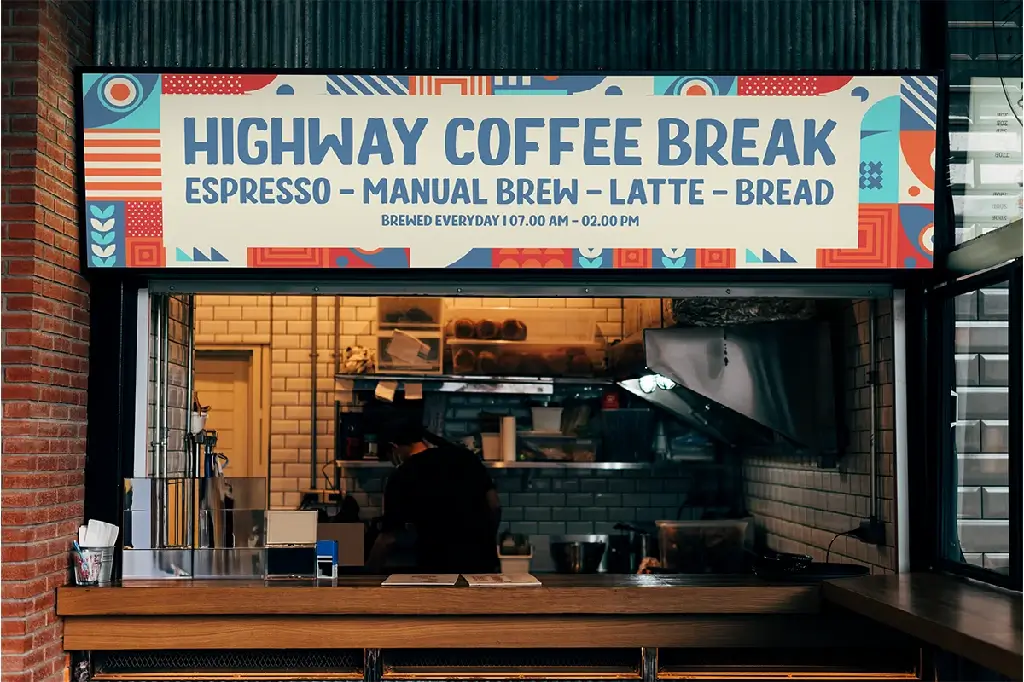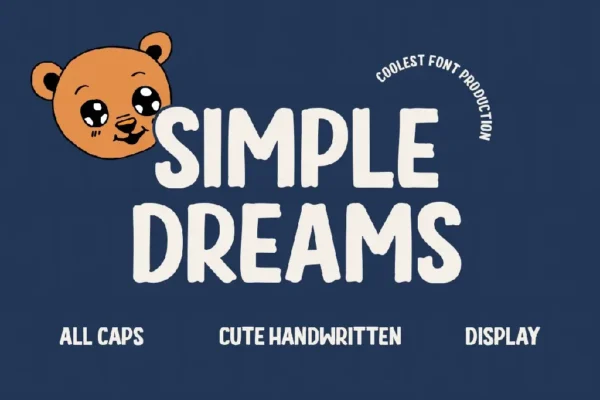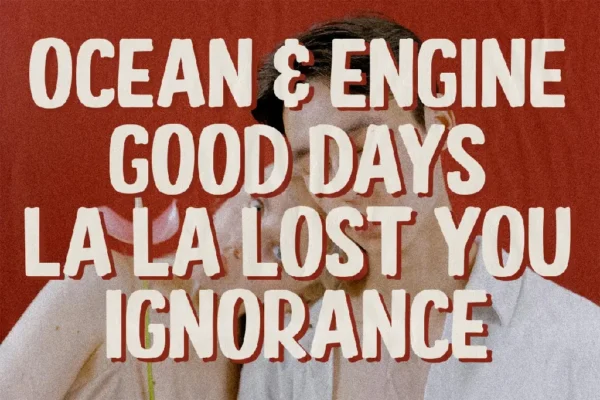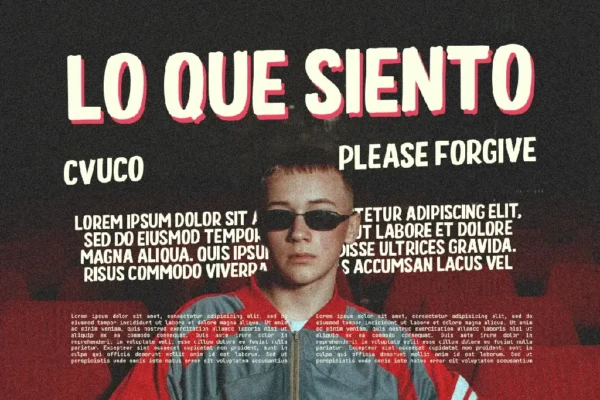
Simple Dreams – Cute Handwritten Font
Embrace the charm of handwritten elegance with Simple Dreams, a cute and playful handwritten font designed to bring warmth and personality to your creative projects. With its smooth strokes and natural flow, this font exudes a delightful and friendly vibe, making it perfect for any design that needs a touch of authenticity and joy.
✨ Why You’ll Love Simple Dreams:
✔ Adorable & Playful Style – Crafted with a soft, handwritten touch, giving your designs a natural, cozy, and inviting feel.
✔ Smooth & Legible Strokes – Every letter is carefully designed to ensure easy readability while maintaining a fun, artistic aesthetic.
✔ Versatile Usage – Ideal for logos, branding, invitations, social media posts, greeting cards, packaging, quotes, and more.
✔ Multilingual Support – Comes with a wide range of characters, ligatures, and alternates, ensuring seamless usage across different languages.
Where to Use Simple Dreams?
- Branding & Logos – Create an approachable and cheerful brand identity.
- Social Media Graphics – Make your posts stand out with a fun, organic look.
- Quotes & Posters – Add a handwritten charm to inspirational messages.
- Packaging & Labels – Give your product packaging a cute and artisanal feel.
- Wedding & Event Invitations – Set the tone with a warm and personal touch.
Let your creativity flow with Simple Dreams – the perfect font for designs that need a touch of whimsy, charm, and personality!